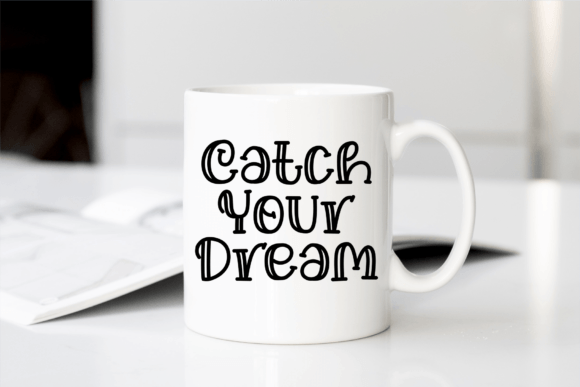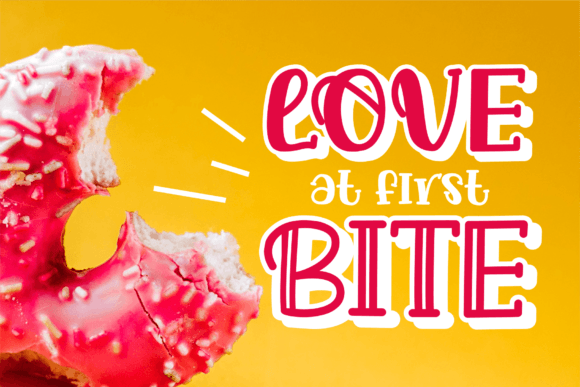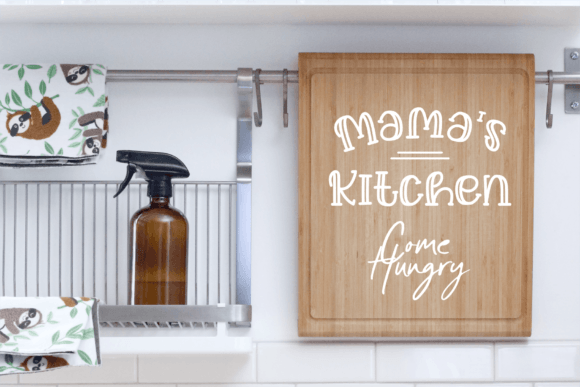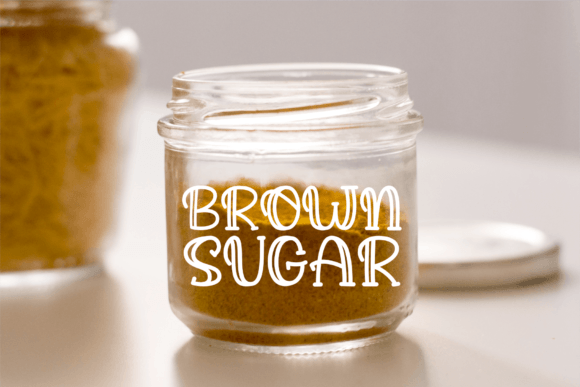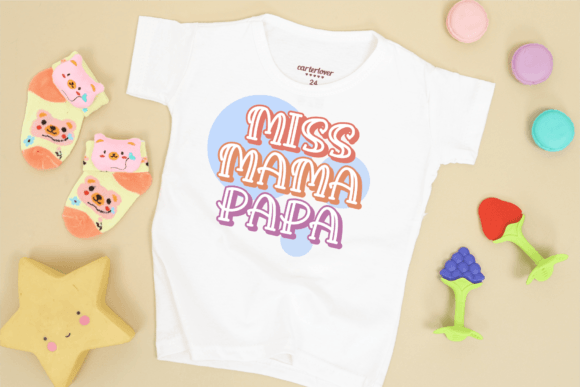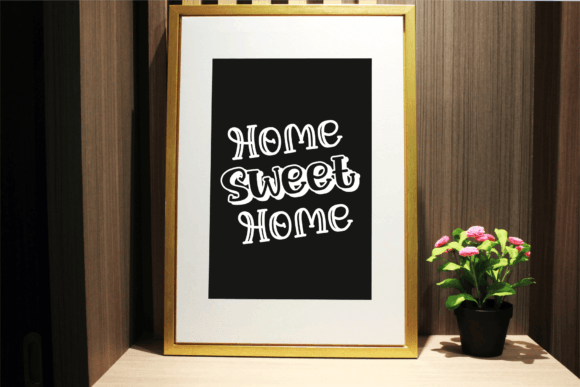
Introduction to Halo Domas Font
Halo Domas is a unique and friendly display font perfect for any creative idea.
| 👤 Author | Mabhal Studio |
Use fun and cute font on back-to-school designs, storybooks, magazines, mugs, clothes, invitations, and more .
Key Features of Halo Domas Font
Why Choose Halo Domas Font?
Halo Domas Font offers exceptional quality and versatility, making it a valuable addition to your design toolkit. Whether you’re creating for personal projects or commercial use, Halo Domas Font delivers professional results.